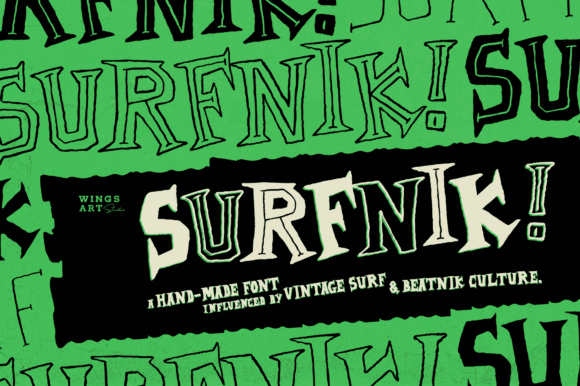
Unleash the Vibrant Spirit of Vintage Charm with Surfnik Font – A Captivating Serif for a Nostalgic Touch
Journey back to the golden era of surf, sun, and rock 'n' roll with Surfnik, a hand-crafted serif font steeped in vintage allure. Inspired by the carefree spirit of the 1950s and '60s beatnik and surf culture, Surfnik's playful, loose design evokes a bygone era with a wink and a smile.
Imagine your designs adorned with Surfnik's unique uppercase and lowercase characters, punctuation, language support, and numerals – a typographic treasure trove that grants your creative vision boundless expression. Its six versatile styles, ranging from bold and confident to delicate and airy, allow you to mix and match effortlessly, creating titles and headlines that resonate with your audience.
Adorn your menus with Surfnik's charm, inviting patrons to embark on a culinary adventure filled with nostalgia. Craft movie posters that transport viewers to enchanting realms, capturing the essence of classic cinema. Unleash your creativity with album covers that exude the raw energy of rock 'n' roll, or design posters that channel the carefree spirit of beachside living. The possibilities are endless, limited only by your imagination.
Embrace the allure of Surfnik, a font that speaks to the heart with its timeless appeal. Whether you seek to create captivating digital content, stunning print designs, or anything in between, Surfnik stands ready as your trusted partner, igniting a spark of joy and connection with your audience. Don't let this opportunity pass you by. Dive into the world of Surfnik today and experience the magic of nostalgia, one design at a time.